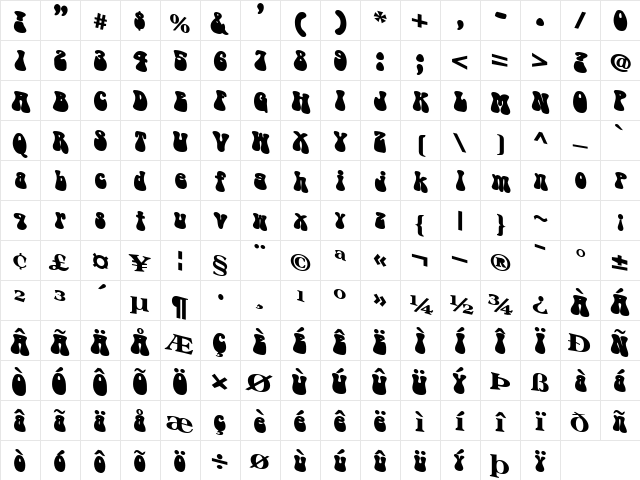
Complete PuppyLikeNew32 Bold glyph index. Displaying only characters natively supported by PuppyLikeNew32 Bold font.
PuppyLikeNew32 is a composed and adaptable typeface that performs quietly and consistently across a wide range of design contexts. Its bold stroke weight gives it real presence on the page.